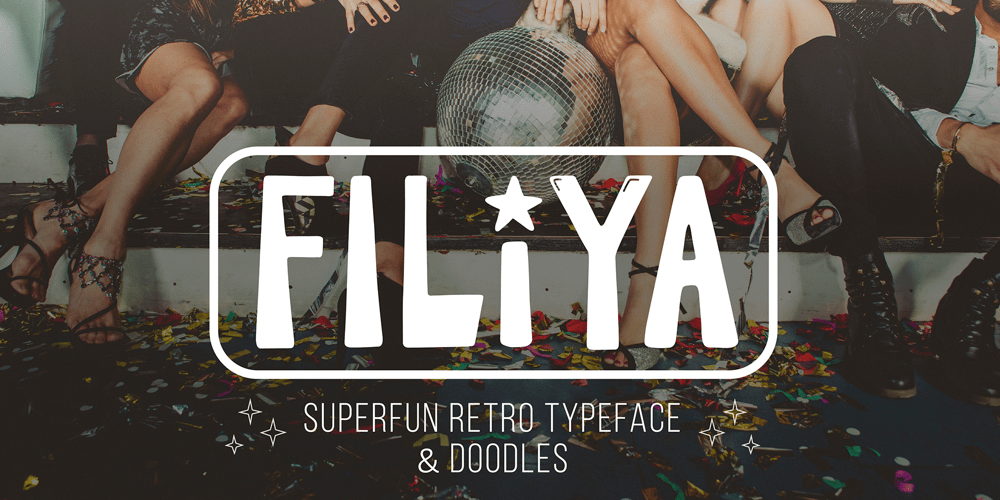
Filiya Font Family was designed by Anastasia Kuznetsova and published by Anastasia Kuznetsova. Filiya contains 5 styles and family package options. Say hello to ‘Filiya’! This is a funky hand-drawn handwritten font, perfect for all your holiday designs!! Add some retro fun using the ‘Filiya’ font inspired by the 70s font!This font is perfect for all your retro designs, procreate designs, social media, shirts, stickers, branding, logos, prints, Cricut designs, svg designs and more!This font includes a basic set of retro letters from A to Z, as well as some fun festive Christmas themed letters. Create, enjoy and create your own unique image!’Filiya’ is available in five versions! The kit includes – regular, contour, shadow, luminous and doodle!!Font Features:- A-Z; a-z character set;- 1 language (English);- numbers and punctuation marks, symbols.Fonts can be opened and used in any software that can read standard fonts, even in MS Word. No special software is required to get started.It is recommended to use it in Adobe Illustrator or Adobe Photoshop.Made with love and magic ♡Thank you for reading it, and do not hesitate to send me a message if you have any questions!~ Anastasia